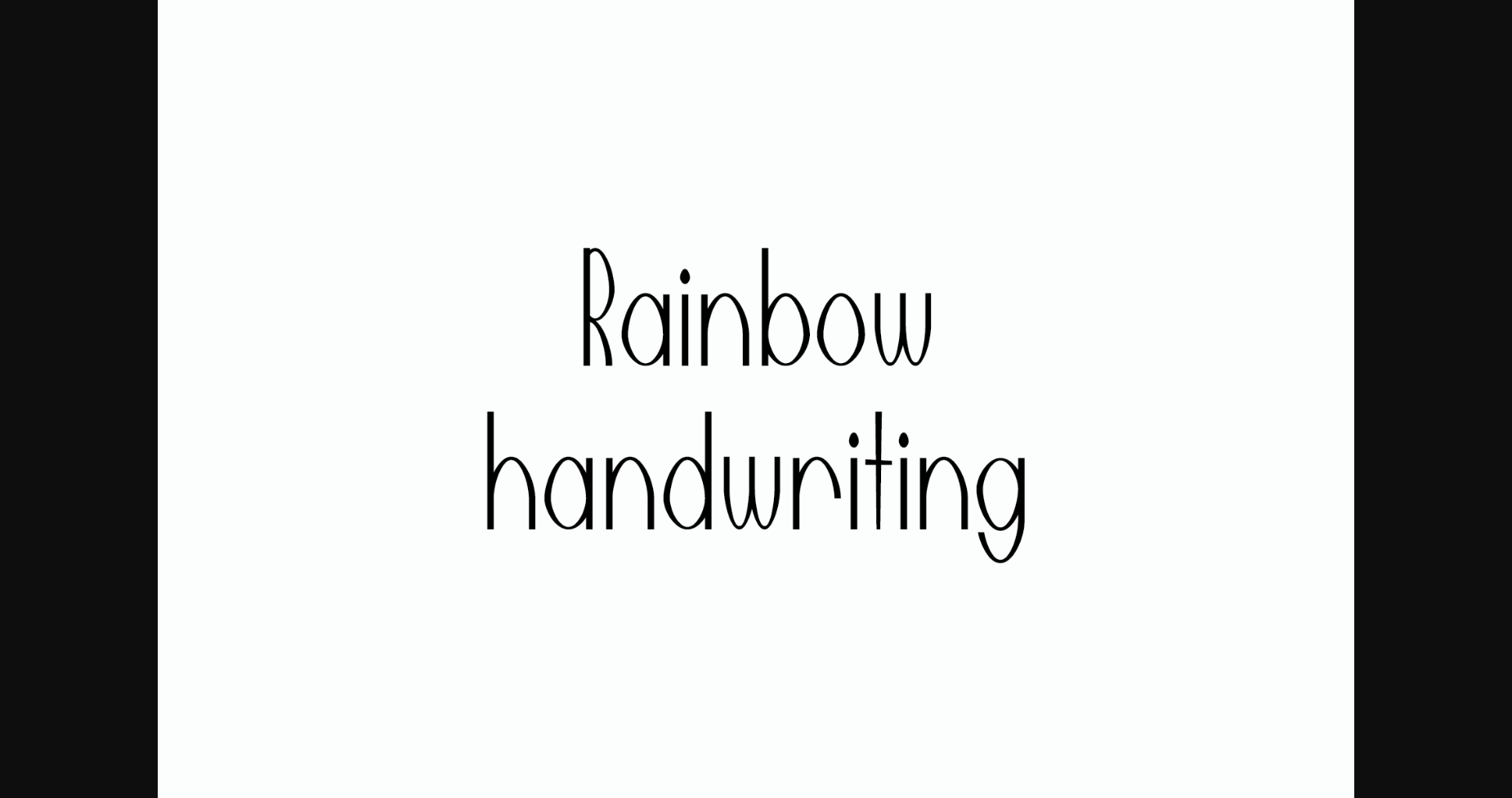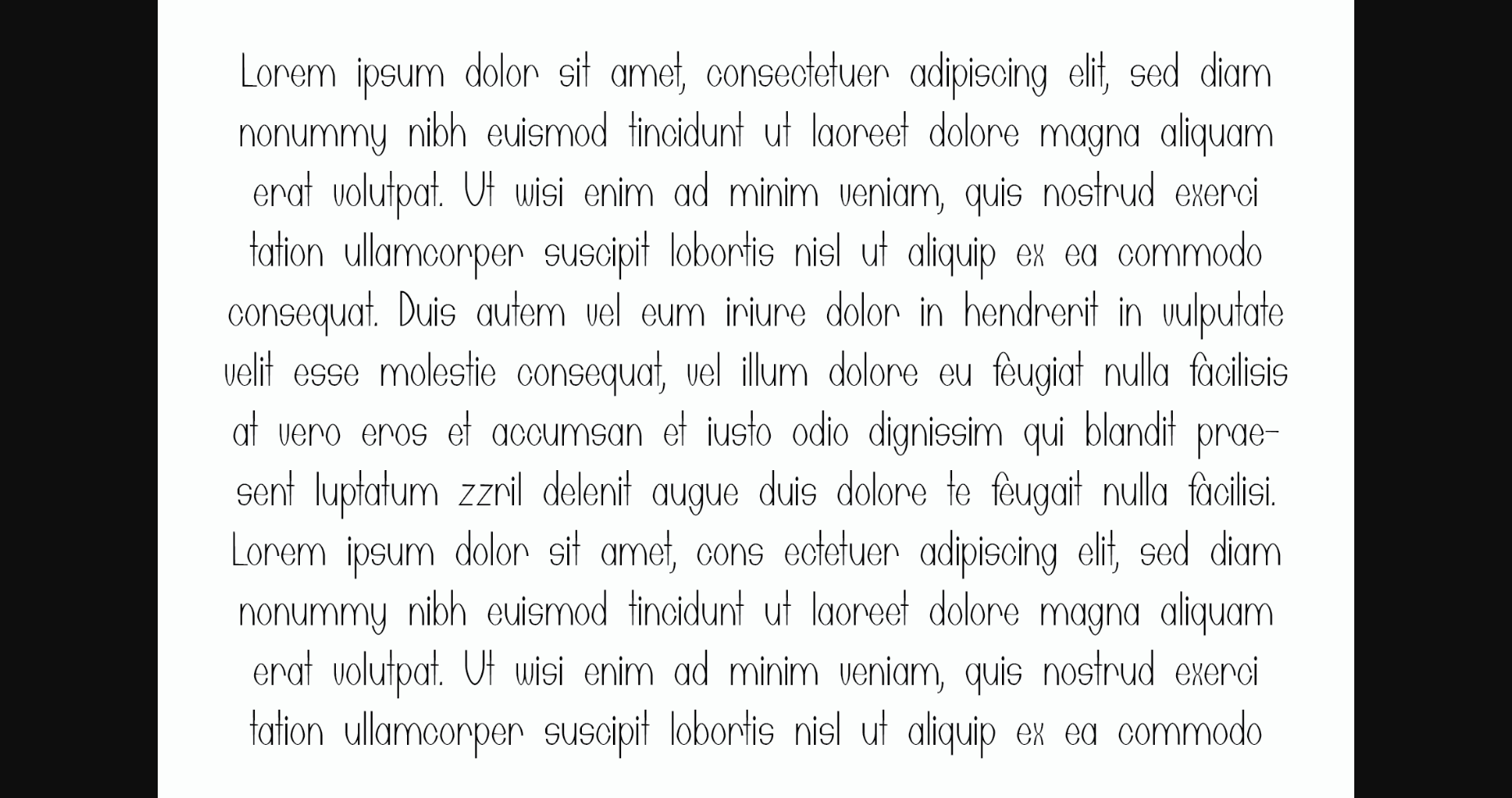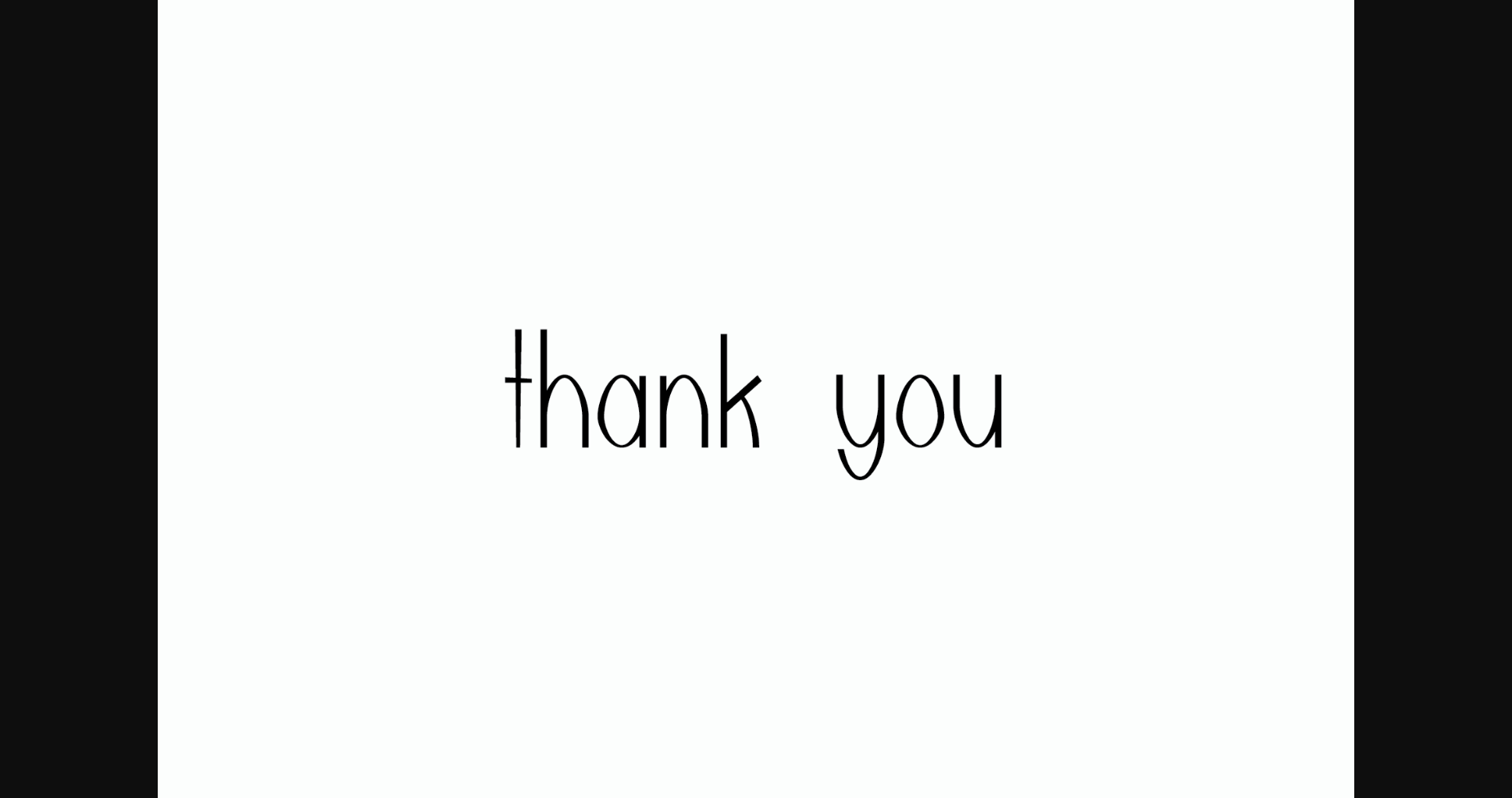
Rainbow Font
About Rainbow Font
Rainbow is a simple and neat sans serif font. It is designed in a bend, blended with simplicity. Extremely versatile, this typeface is perfect for logos, weddings, invitations, quotes, advertisements, print, magazines, and more! It keeps your work neat and fun at the same time.